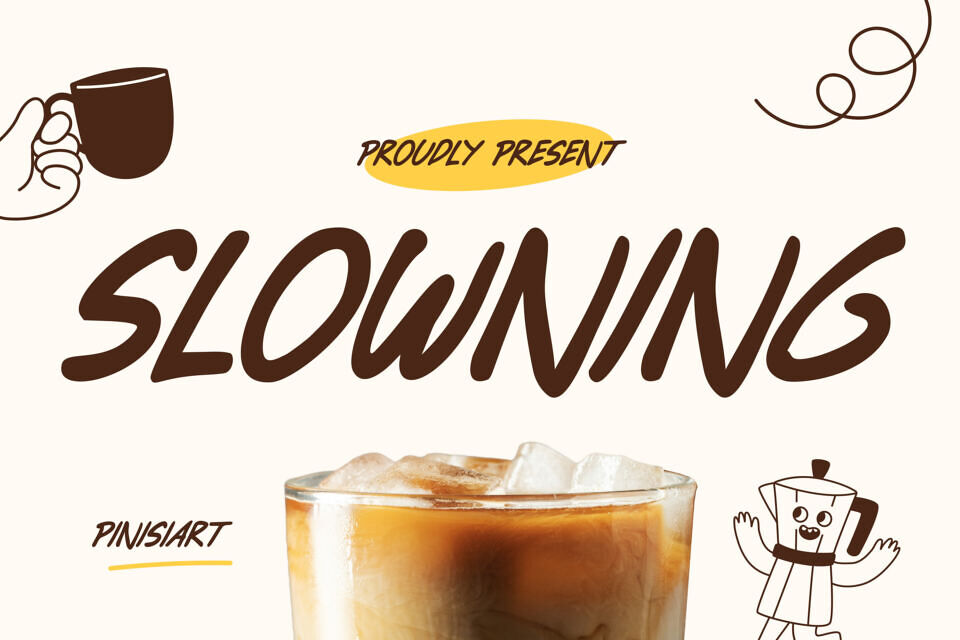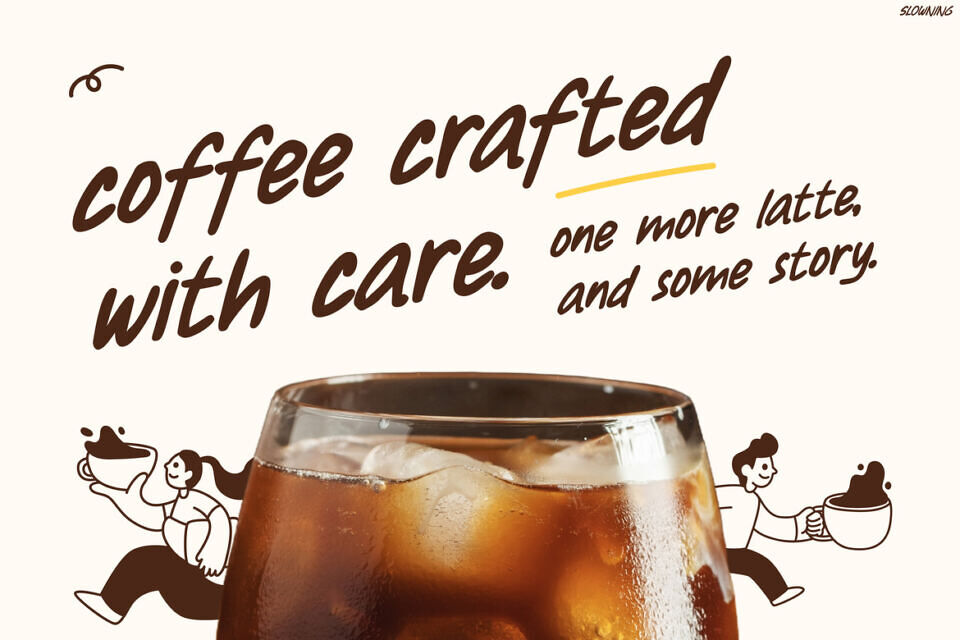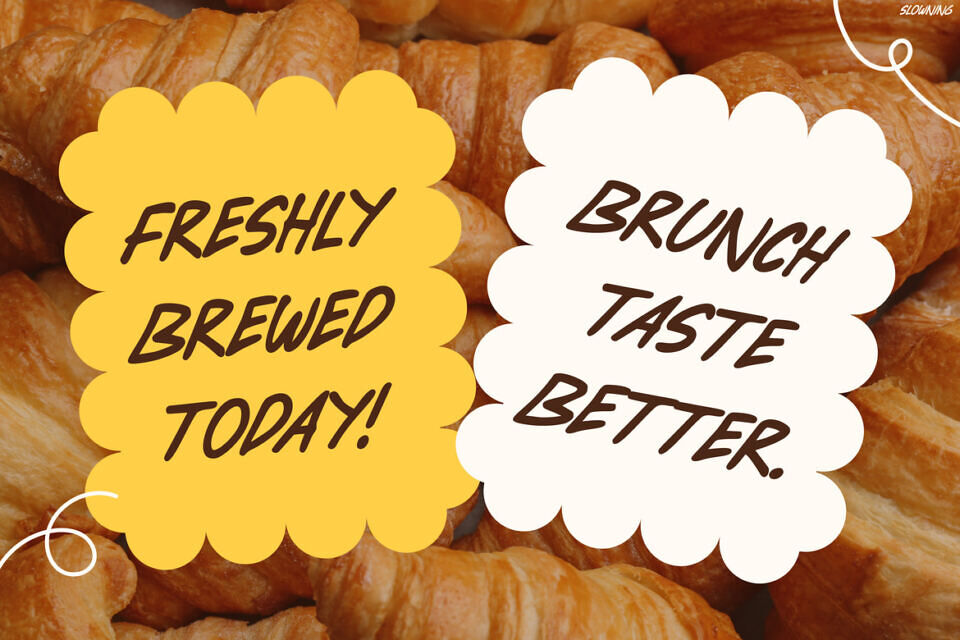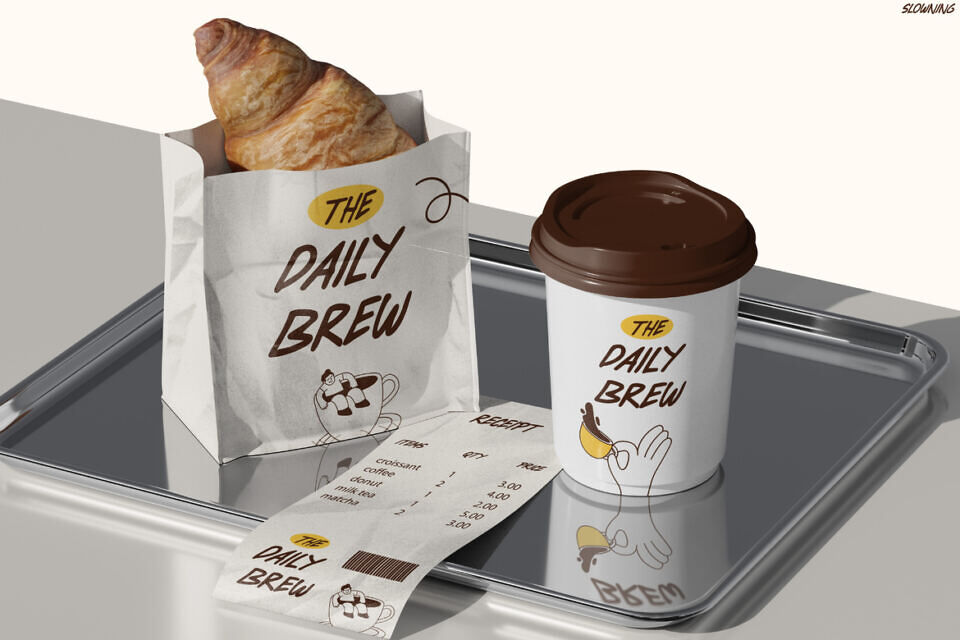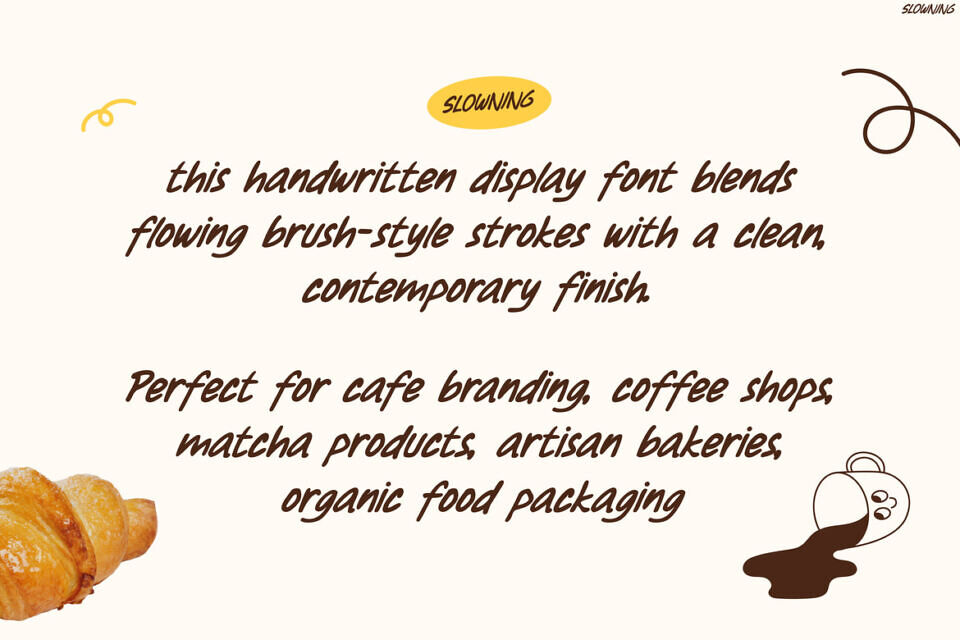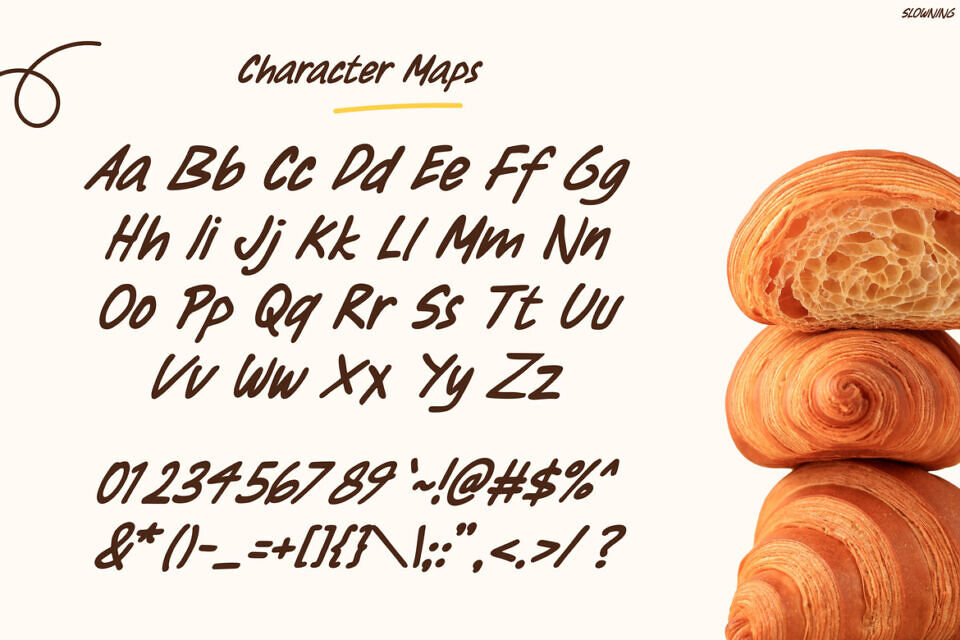
Slowning Font
This font embodies the warmth of slow mornings and handmade craftsmanship through its fluid brush strokes and relaxed handwriting style. It combines effortless elegance with clear readability, creating an authentic and inviting atmosphere.
Each letter has a natural flow, making designs feel personal. The handcrafted look pairs well with cozy visuals, evoking a warm emotional response. Perfect for café branding or artisan packaging, this font adds charm to every design, telling a story with each headline.